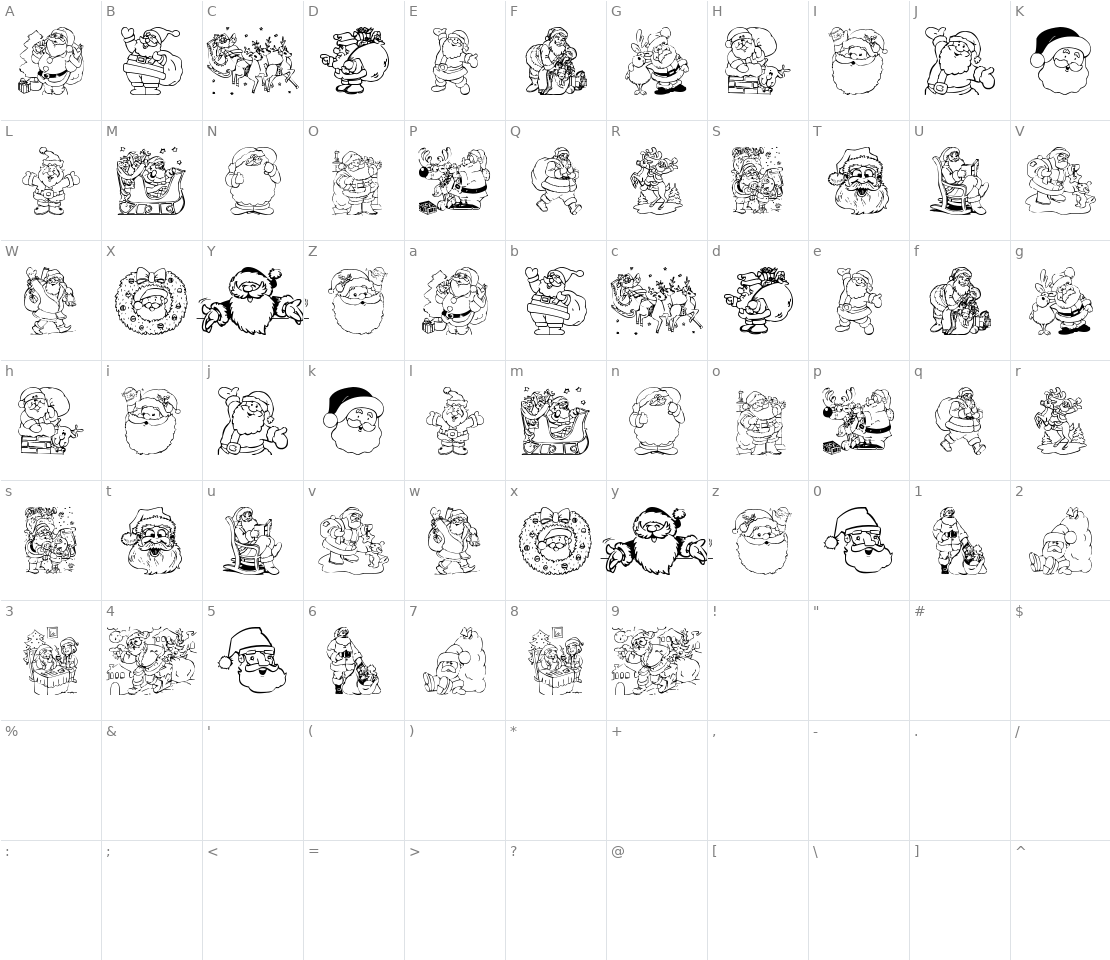
Santa
by Ding Bang
Santa is a decorative holiday font from Ding Bang where the letterforms incorporate Christmas-themed illustrations and Santa Claus imagery. It's cartoonish and festive, clearly built for seasonal greeting cards, party invitations, and holiday signage rather than anything you'd use the rest of the year. Legibility takes a back seat to charm here, so keep it big and use it sparingly.